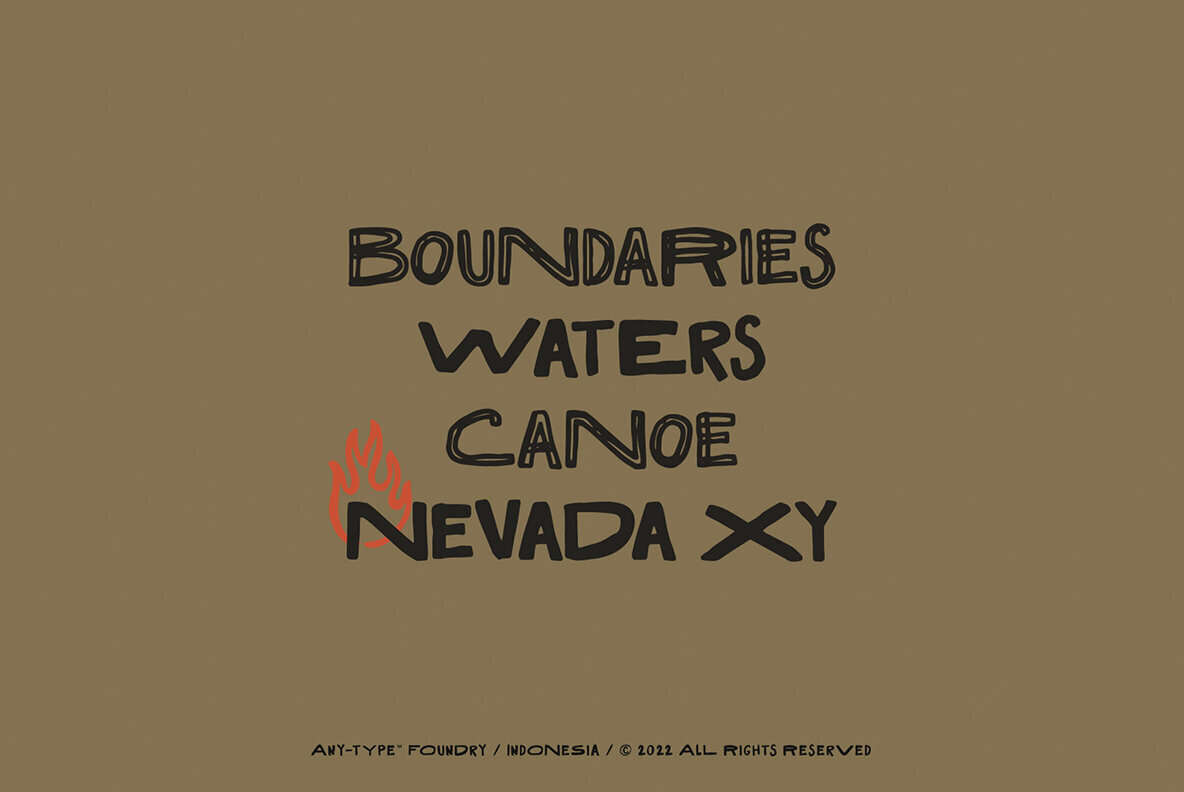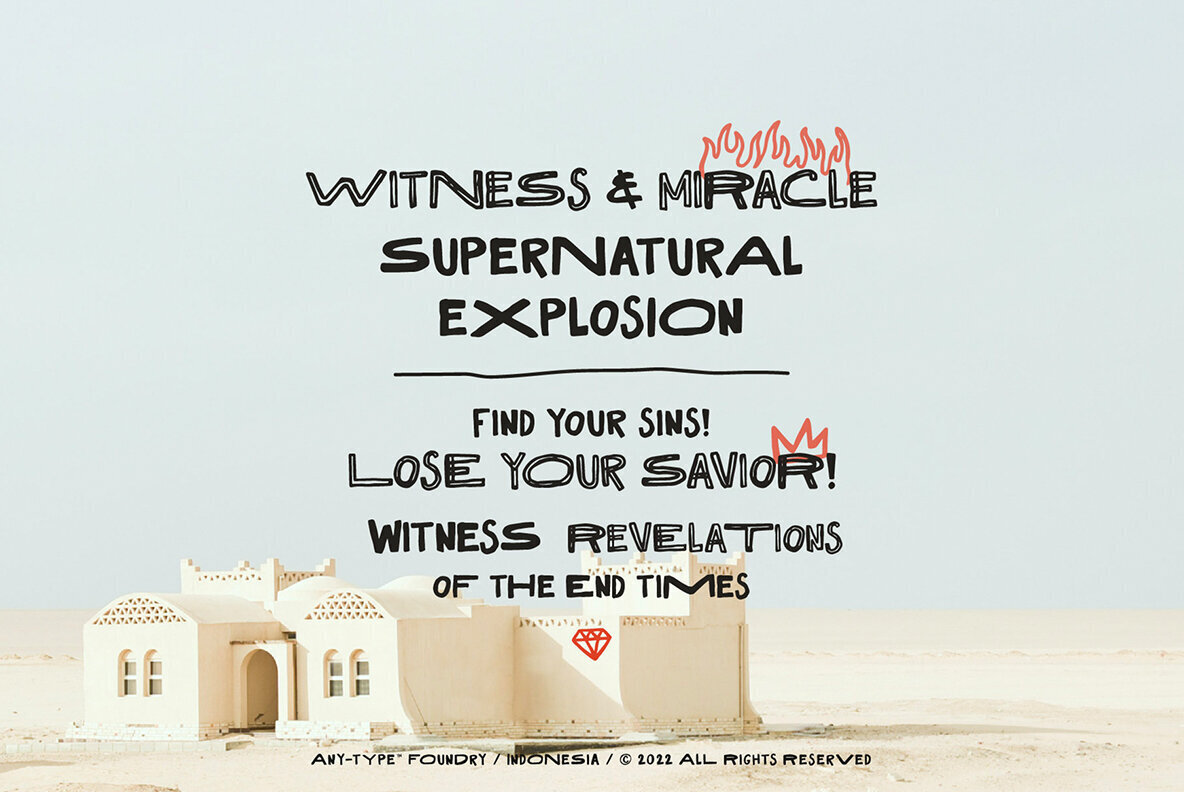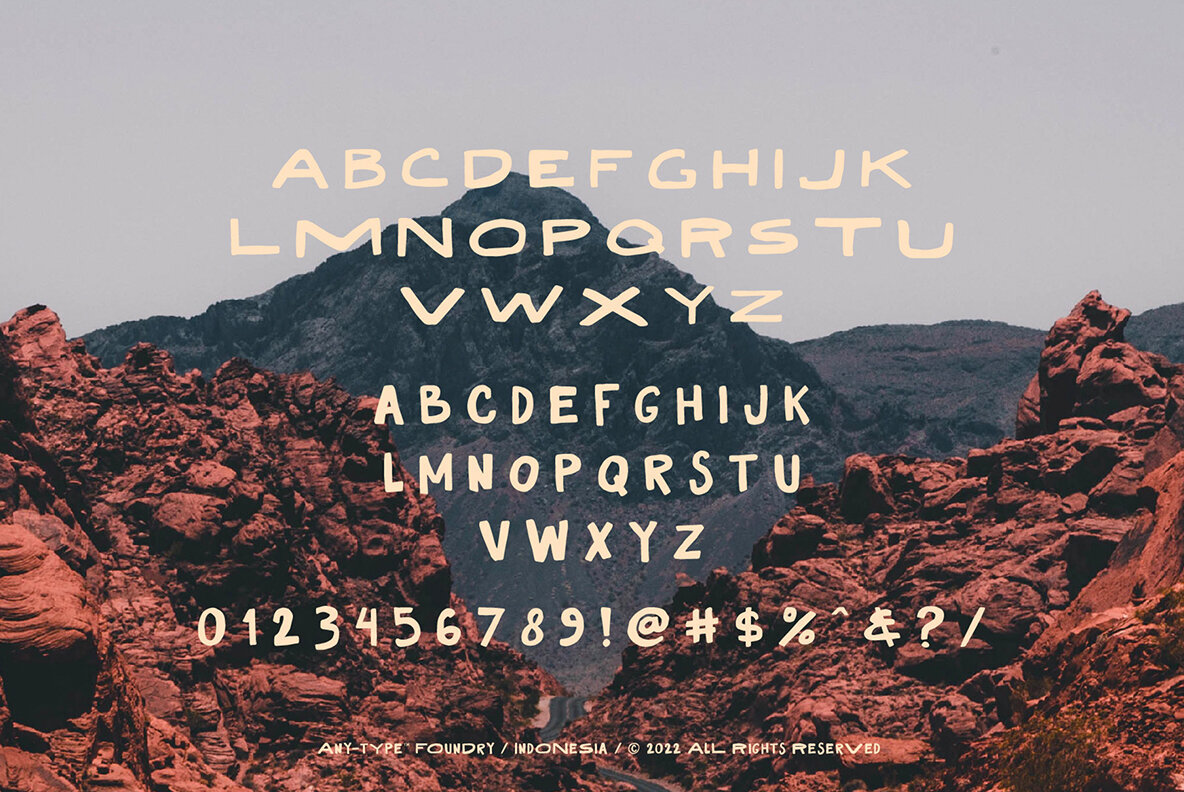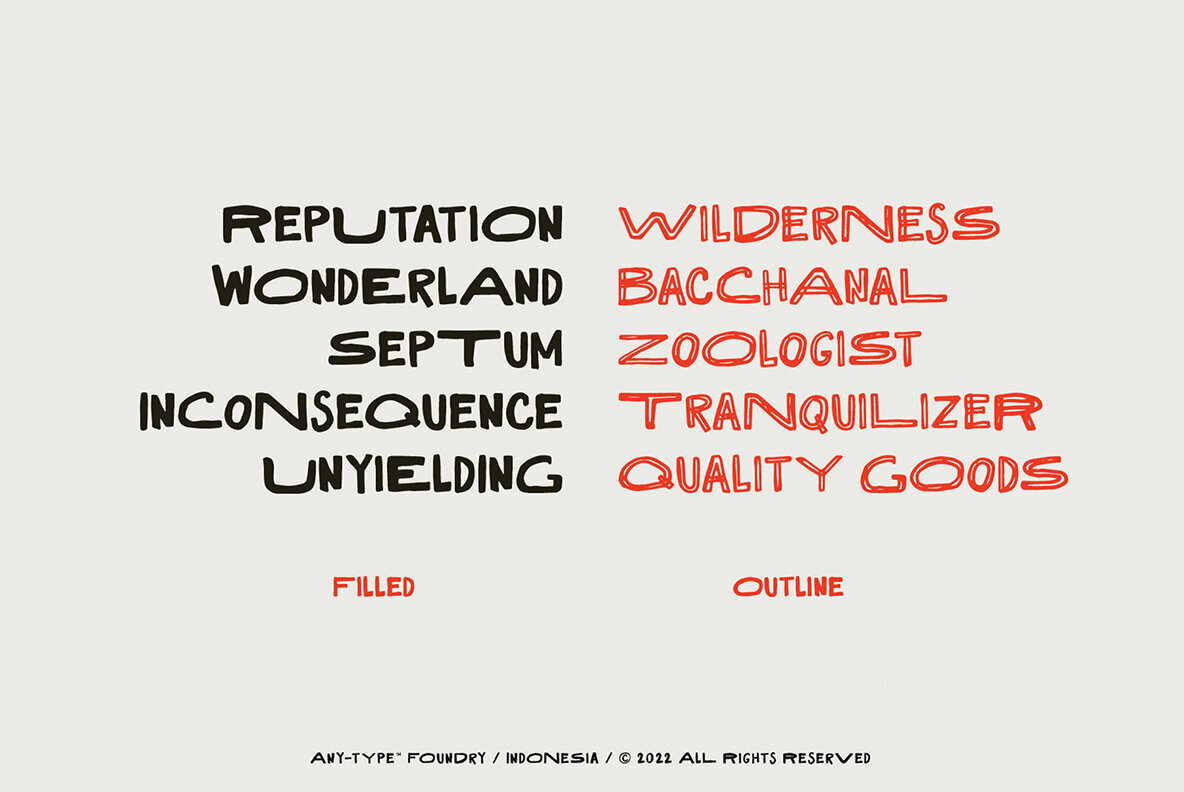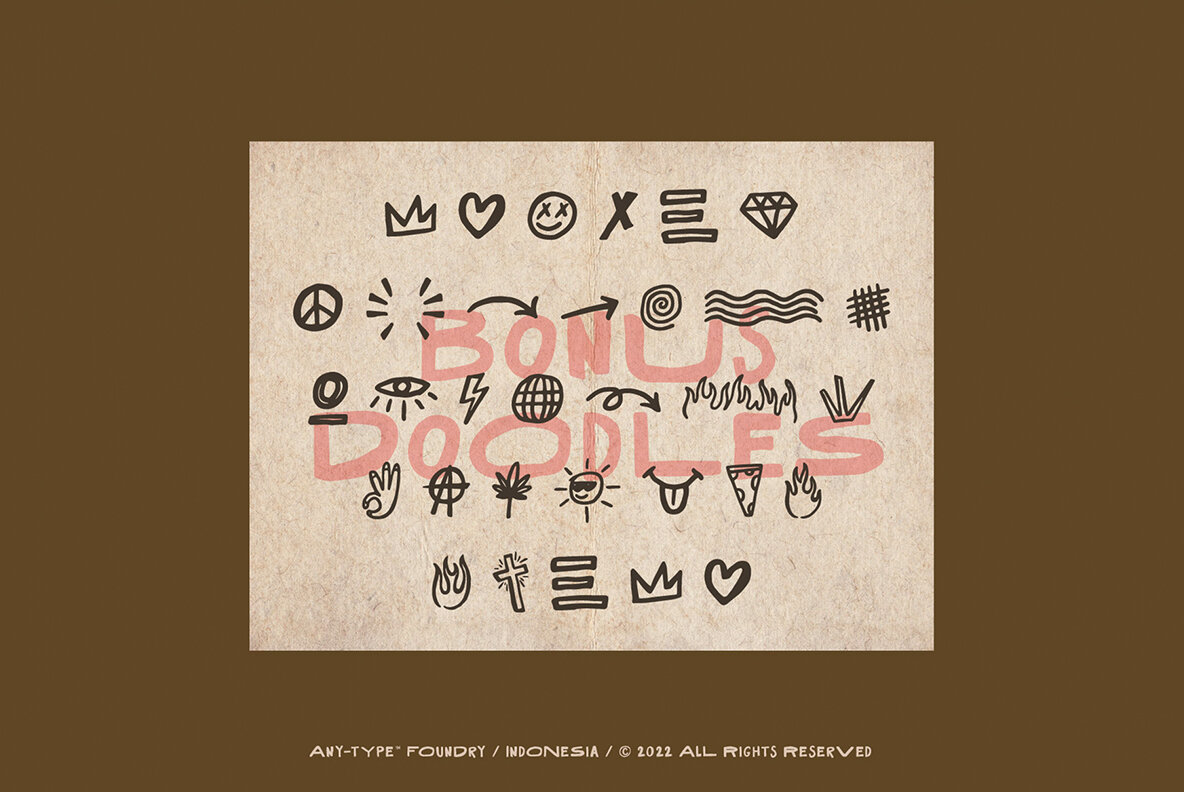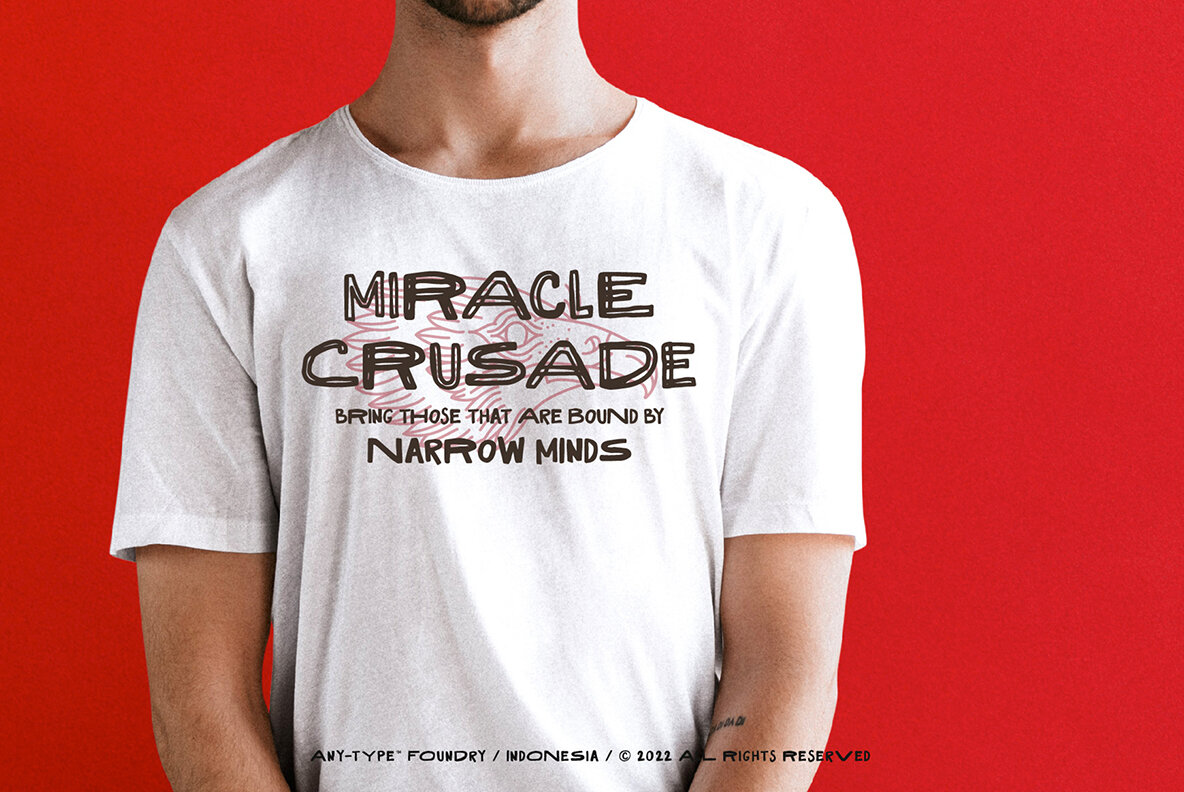
Dakota Font
This customized vintage font has an authentic western feel with its handwritten style. It's perfect for designing anything that requires a unique touch, especially if you want your design to have some extra flair! With 2 different styles available (filled & outline), this versatile typeface works well both online or off-line - no matter what form it takes on--it'll look great in posters but also logos/social media posts alike